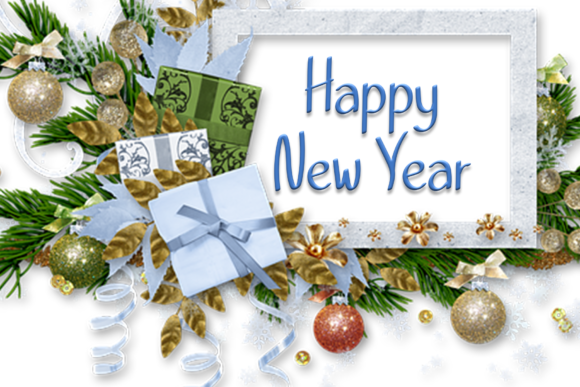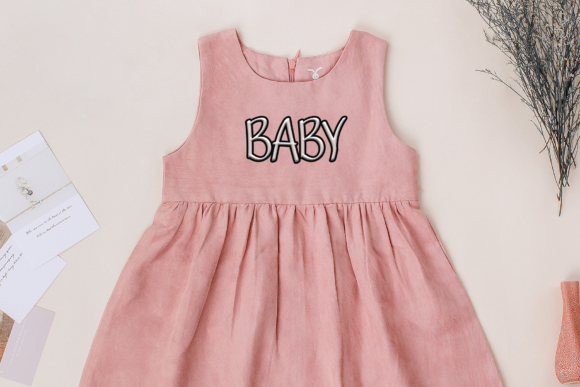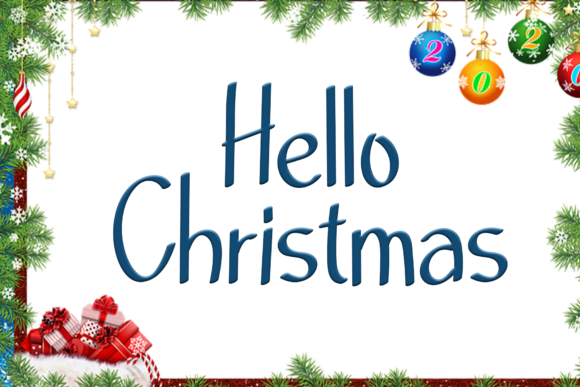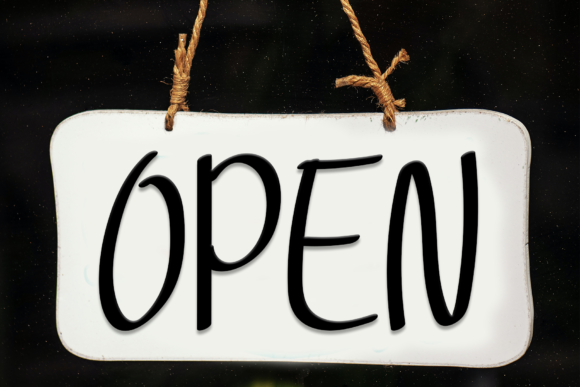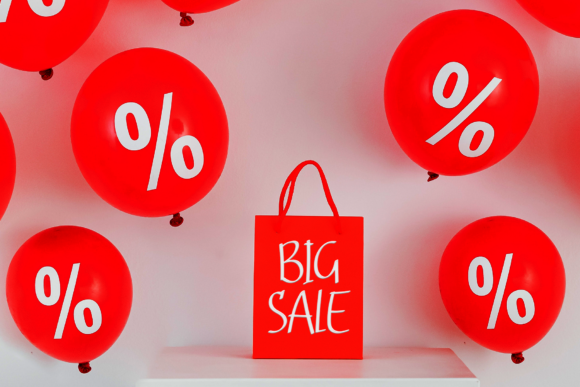
Coffee Break Font: The Perfect Choice for Designers and Crafters
Are you tired of using the same old fonts for your designs and crafts? Look no further than the Coffee Break Font! This unique and clean display font is perfect for a variety of uses, from digital designing and presentations to crafting and greeting cards making.
What Makes Coffee Break Font So Special?
Coffee Break Font is a one-of-a-kind font that stands out from the rest. Its clean and modern design makes it perfect for a wide range of applications. Whether you’re a professional designer or a crafty hobbyist, this font is sure to elevate your work.
One of the key features that sets Coffee Break Font apart is its versatility. It’s a display font, which means it’s designed to make a statement. It’s perfect for headlines, titles, and other applications where you want to grab attention.
Uses for Coffee Break Font
So, what can you use Coffee Break Font for? The possibilities are endless! Here are a few ideas to get you started:
- Digital Designing: Use Coffee Break Font to add a touch of elegance and sophistication to your digital designs. It’s perfect for social media graphics, blog posts, and website headers.
- Presentations: Make your presentations stand out with Coffee Break Font. It’s a great way to add visual interest and keep your audience engaged.
- Crafting: Whether you’re making greeting cards, scrapbooking, or working on other craft projects, Coffee Break Font is a great choice. It’s perfect for titles, headings, and other decorative elements.
- Greeting Cards Making: Create beautiful and unique greeting cards with Coffee Break Font. It’s a great way to add a personal touch and make your cards stand out.
Why Choose Coffee Break Font?
So, why should you choose Coffee Break Font for your next project? Here are just a few reasons:
- Unique Design: Coffee Break Font has a unique and modern design that’s sure to turn heads.
- Clean and Legible: The font is clean and legible, making it perfect for a wide range of applications.
- Versatile: Coffee Break Font is versatile and can be used for a variety of projects, from digital designing to crafting.
Tips for Using Coffee Break Font
Here are a few tips for using Coffee Break Font:
- Use it as a Headline Font: Coffee Break Font is perfect for headlines and titles. Use it to grab attention and add visual interest.
- Pair it with Other Fonts: Coffee Break Font pairs well with other fonts. Try pairing it with a sans-serif font for a modern look.
- Experiment with Colors: Don’t be afraid to experiment with different colors and textures. Coffee Break Font looks great in a variety of colors and can be used to add a pop of color to your designs.
In conclusion, Coffee Break Font is a unique and clean display font that’s perfect for designers and crafters. Its versatility, modern design, and ease of use make it a great choice for a wide range of applications. Whether you’re working on a digital design project, making greeting cards, or crafting, Coffee Break Font is sure to elevate your work.